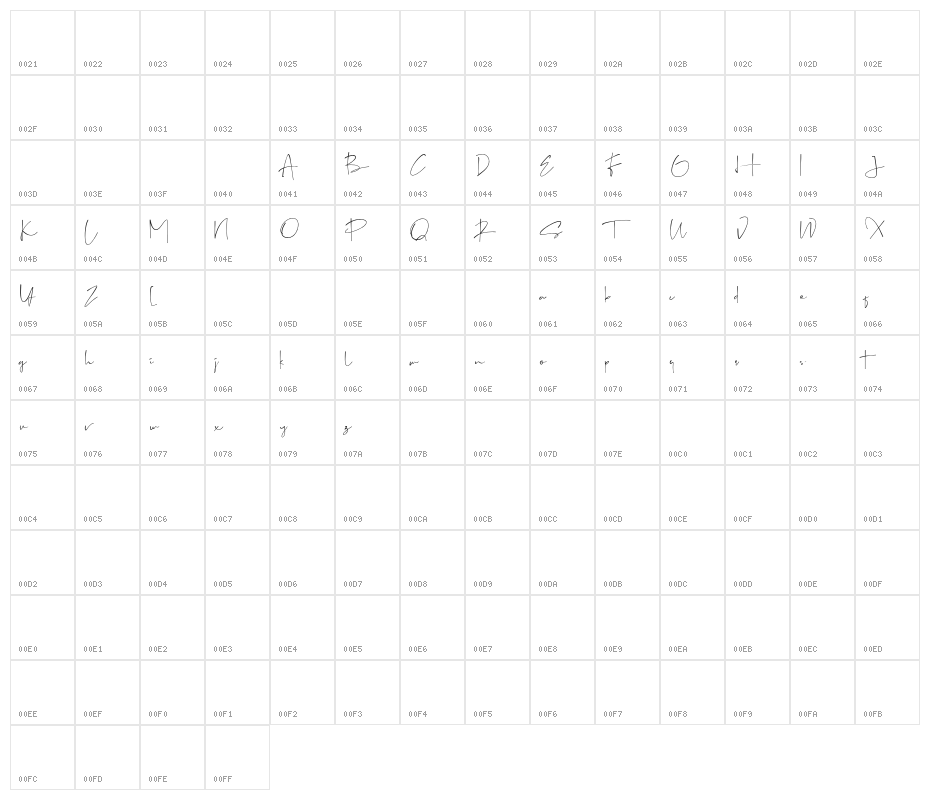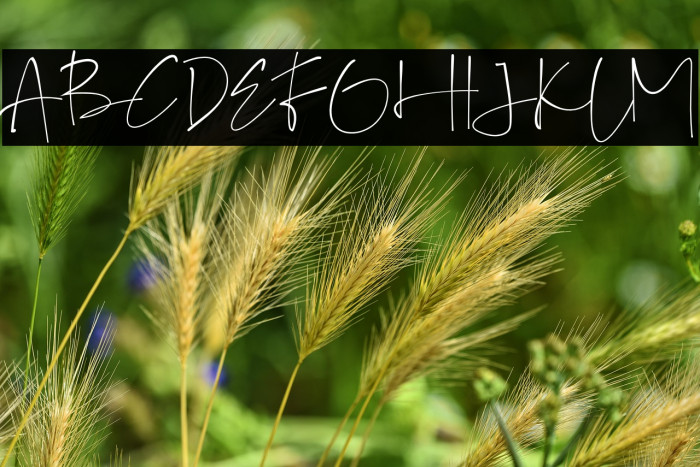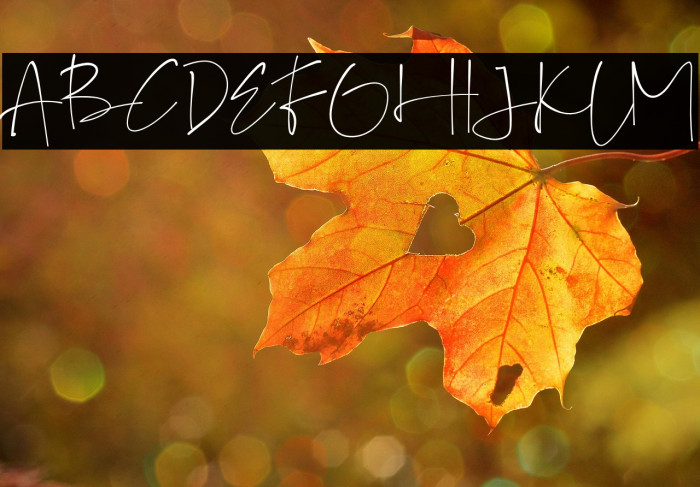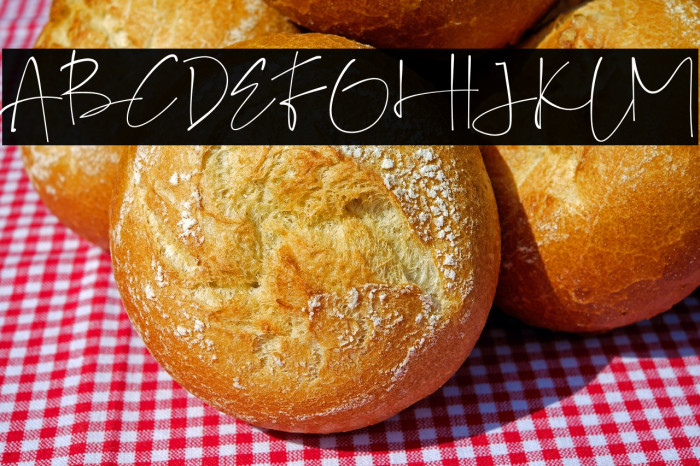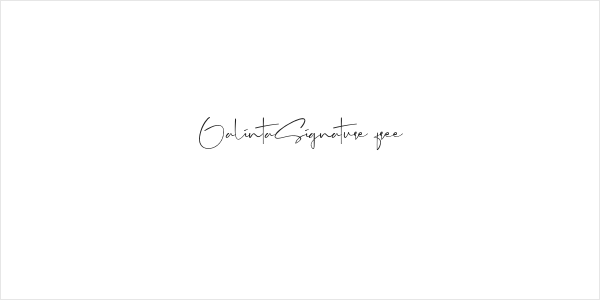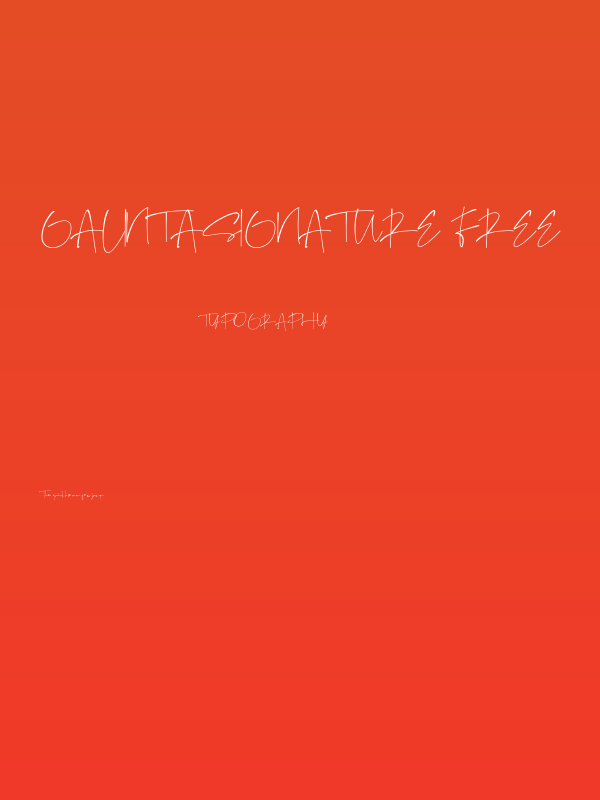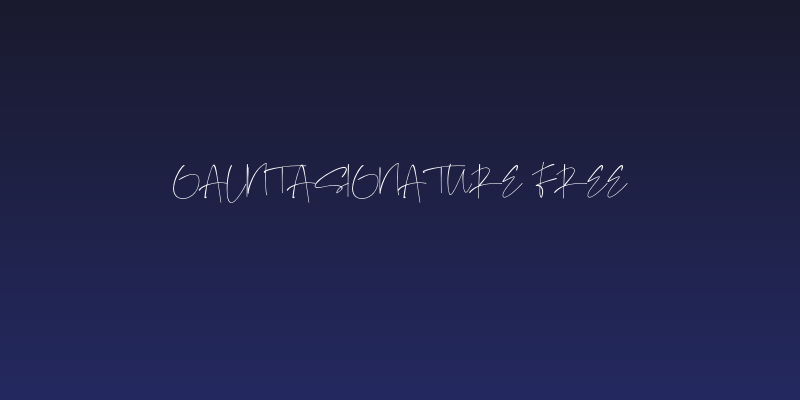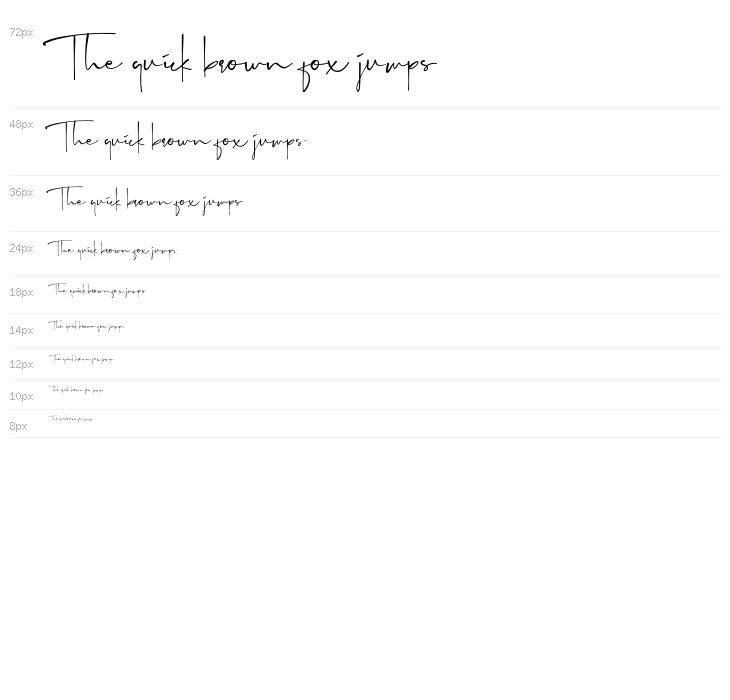
GalintaSignature-free Font
GalintaSignature-free Description
This font exudes a modern and elegant handwritten style, characterized by its flowing and interconnected letterforms. The uppercase letters are tall and slender, with a slight slant that adds a dynamic feel. The lowercase letters maintain a consistent fluidity, enhancing the script-like appearance. The strokes are delicate yet confident, with varying thickness that adds a touch of sophistication. This font is perfect for projects that require a personal and artistic touch, such as invitations, branding, and creative designs. Its unique style makes it stand out while remaining legible and stylish.
| Use Case | Logos, Invitations, Creative designs |
| Proposed Projects | Ideal for invitations, branding, and creative designs requiring a personal touch. |